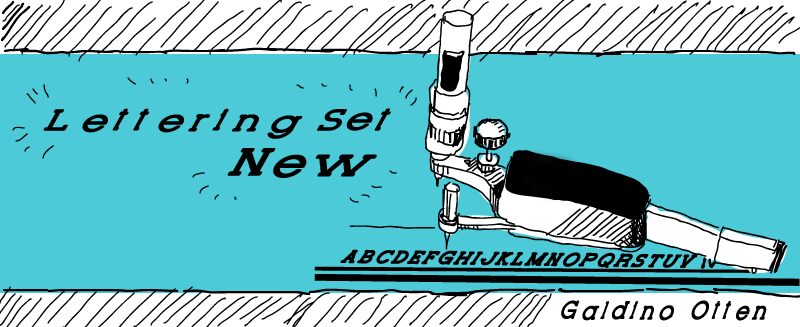
Lettering Set New Italic by Galdino Otten is a free italic serif font with a strong forward slant and pronounced changes in stroke width. Long, flattened serifs sharpen its streamlined, aerodynamic silhouette.
Automotive branding is its clearest fit, especially for racing teams, parts packaging, and event posters that benefit from the lettering's speed-driven profile. It can also shape music merchandise and magazine mastheads, where the sweeping forms become part of the product identity.